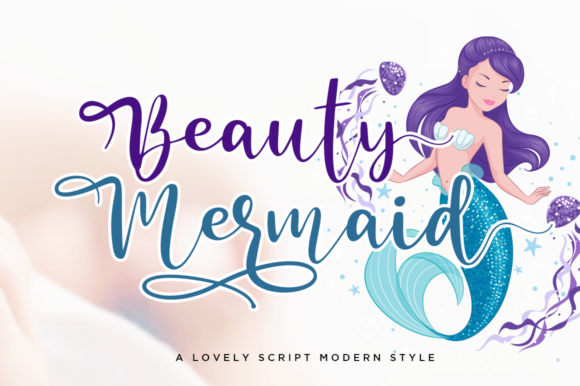
Dive into the depths of creativity with Beauty Mermaid Font, a mesmerizing handwritten script font that will cast a spell on your designs. Its enchanting baseline, smooth lines, and captivating glyphs will transport you to a world of wonder and whimsy. Unveil the hidden treasures of this font family, crafted with meticulous care by the talented Haksen, and let your imagination run wild.
Journey through the depths of Beauty Mermaid's glyphs, discovering a symphony of stunning alternates and swashes that dance across the page. Allow the font's varying baseline to guide your words, creating a dynamic rhythm that captivates and enchants. With Beauty Mermaid, every letter is a brushstroke of magic, painting a picture of elegance and allure.
Unleash the full power of Beauty Mermaid in your creative endeavors. Whether you're crafting logos that shimmer like mermaid scales or designing invitations that whisper of underwater dreams, this font will elevate your projects to new heights. Its versatility knows no bounds, making it the perfect choice for everything from enchanting social media posts to captivating branding materials.
Step into a realm of endless possibilities with Beauty Mermaid. Let its enchanting charm weave its way into your designs, leaving a trail of beauty and wonder in its wake. Unlock the secrets of this captivating font family and let your creativity flourish. Dive into the depths of Beauty Mermaid today, and let your imagination take flight.